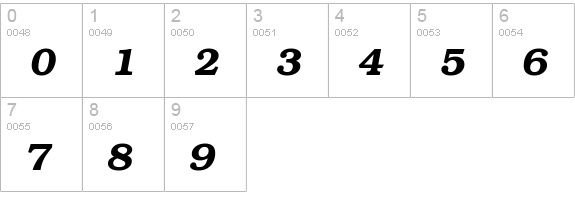
Book-DemiItalic is a comfortable, highly readable variant in the Book typeface family \xE2\x80\x94 well suited to long-form body text, articles, and editorial content.
Introducing Book-DemiItalic font, a sleek and sophisticated typeface that exudes elegance and charm. With its unique blend of classic and modern design elements, this font is perfect for adding a touch of sophistication to any project. The italicized style of Book-DemiItalic adds a dynamic and stylish flair to your text, making it stand out from the crowd. Best of all, Book-DemiItalic font is available for free download at FontsMarket.com. This means you can easily access this stunning font without any cost, making it a valuable addition to your font collection. Whether you're working on a creative project, designing a website, or crafting eye-catching marketing materials, Book-DemiItalic font is sure to elevate your work to the next level. Don't miss out on this opportunity to enhance your designs with the timeless elegance of Book-DemiItalic font. Download it for free today at FontsMarket.com and start creating beautiful and captivating typography that will leave a lasting impression.